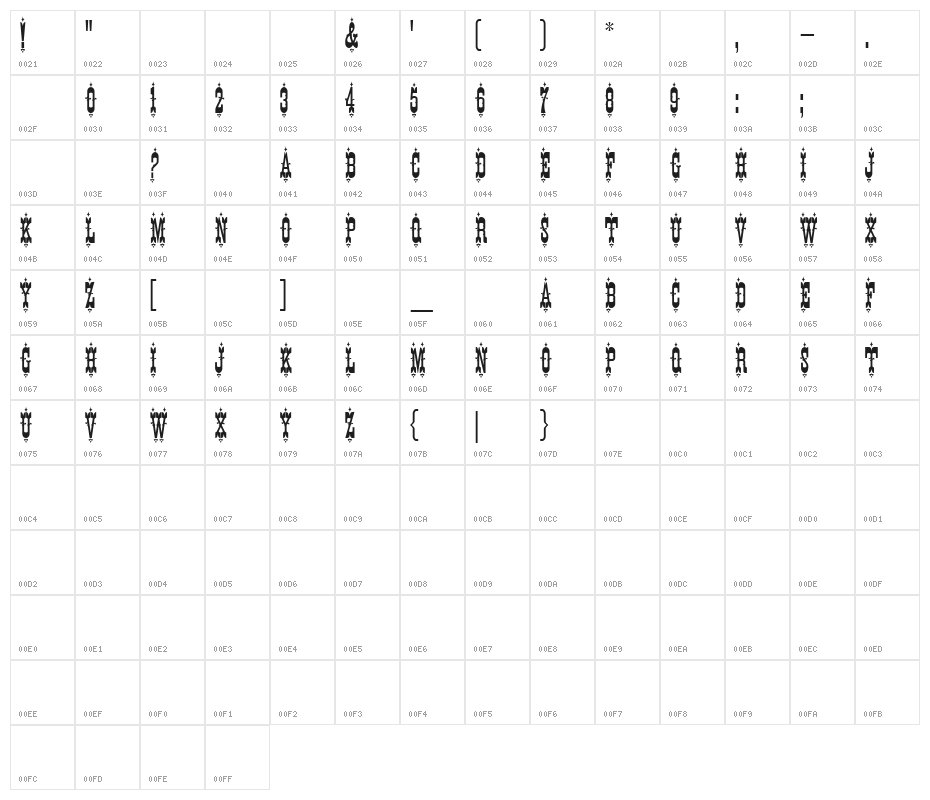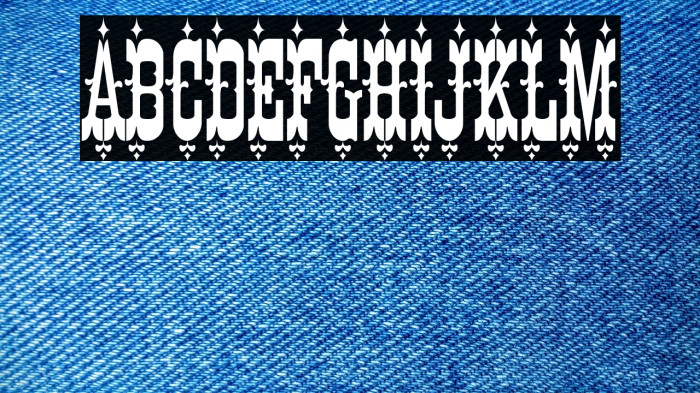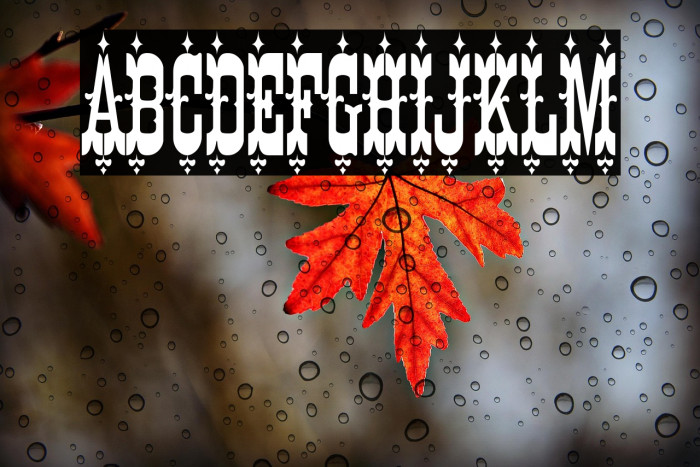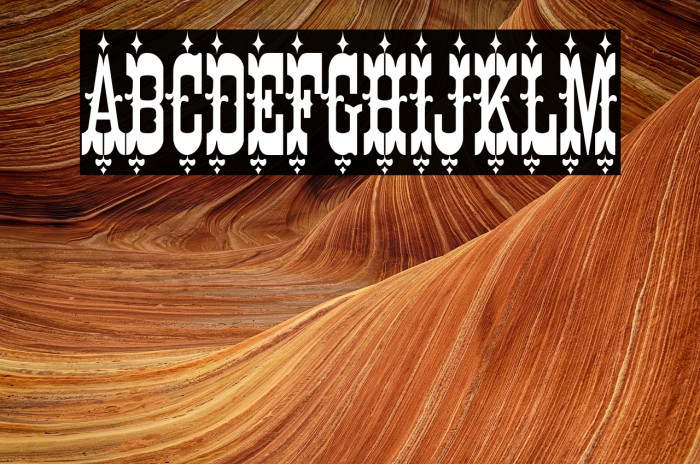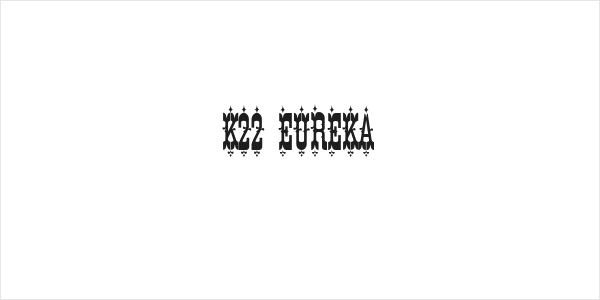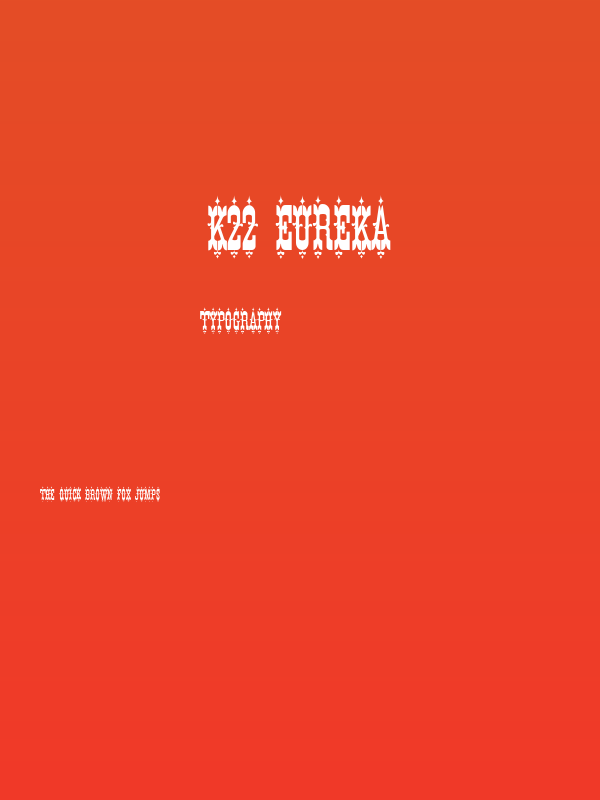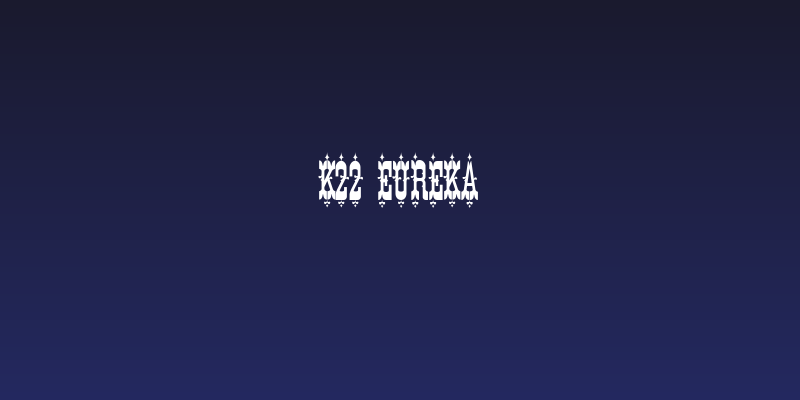
K22 Eureka Font
K22 Eureka Description
This font features a bold, decorative style with intricate details that resemble spade-like shapes integrated into the characters. The uppercase letters are tall and commanding, with a strong presence that makes them ideal for attention-grabbing headlines. The numbers and special characters maintain the same decorative elements, ensuring a cohesive look across all text. The font's unique design elements give it a vintage, almost theatrical appearance, making it suitable for projects that require a touch of elegance and flair.
| Proposed Projects | Perfect for posters, event invitations, theatrical productions, and branding that requires a vintage or decorative touch. |